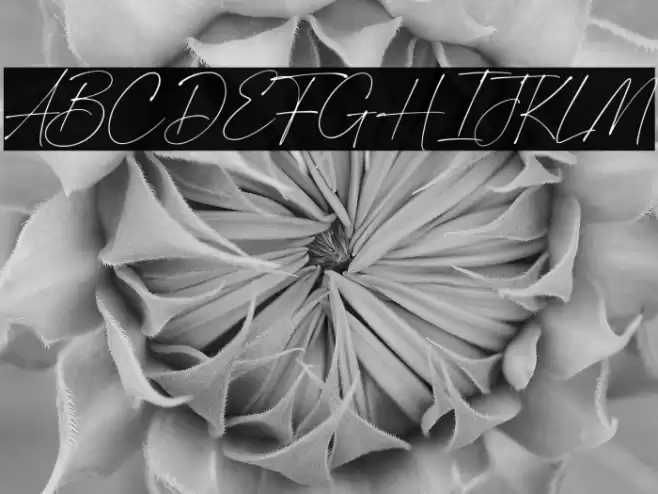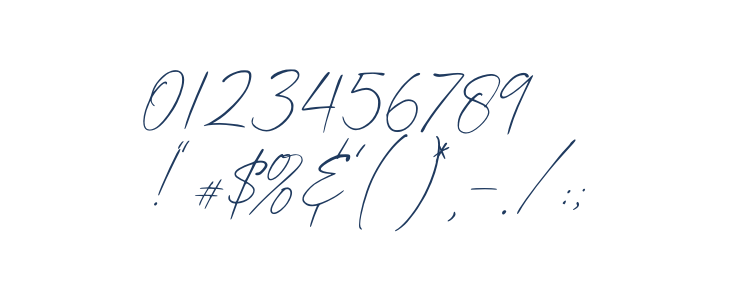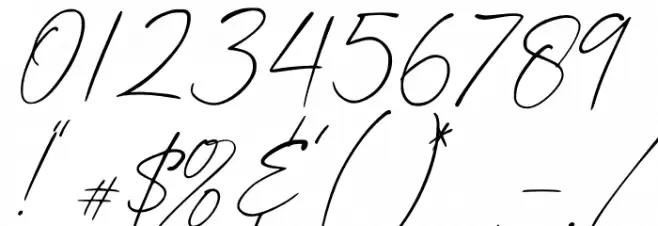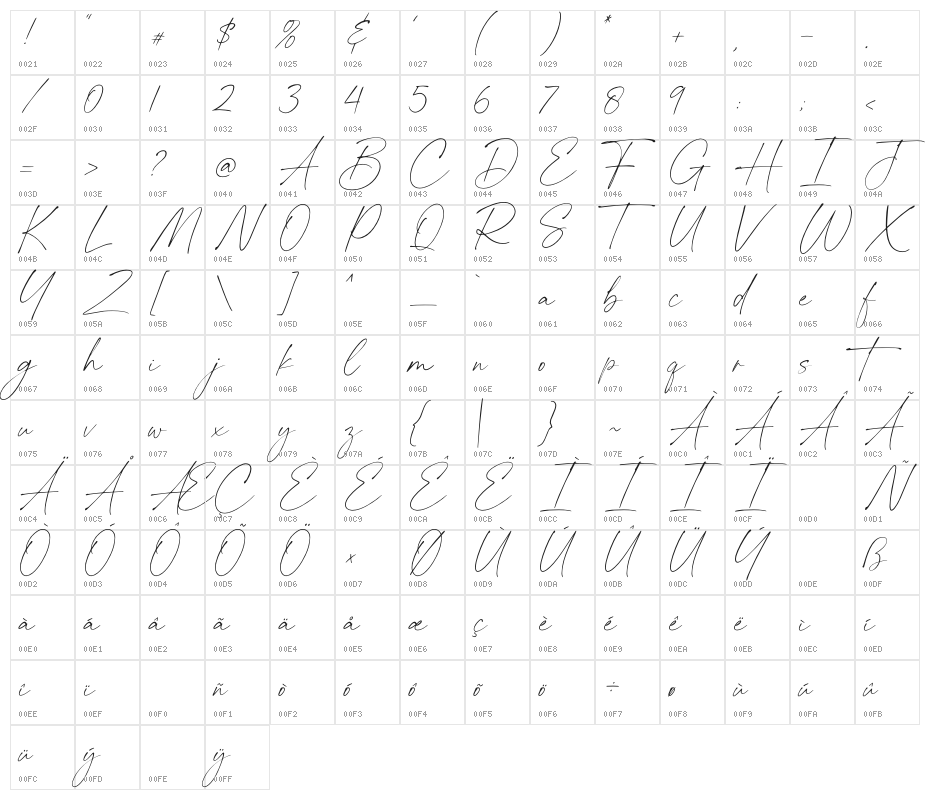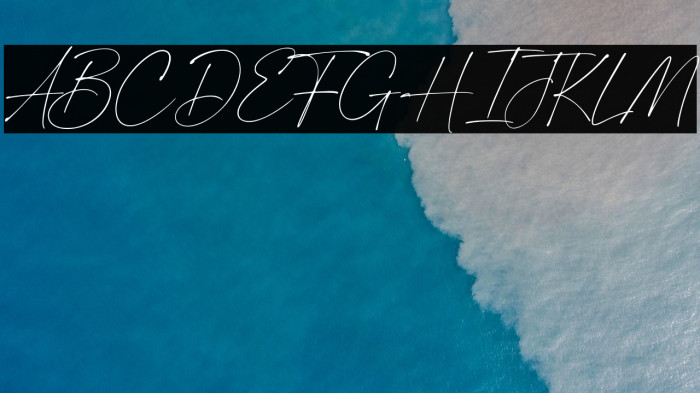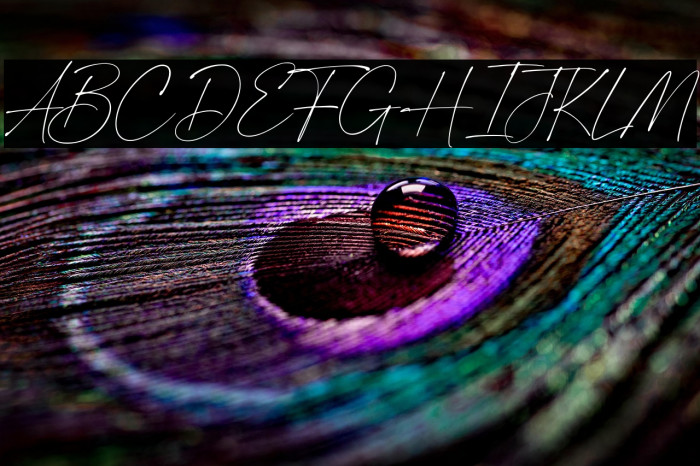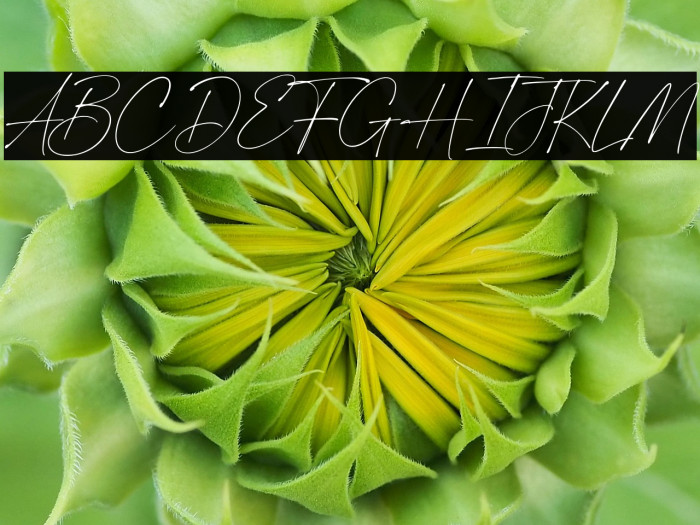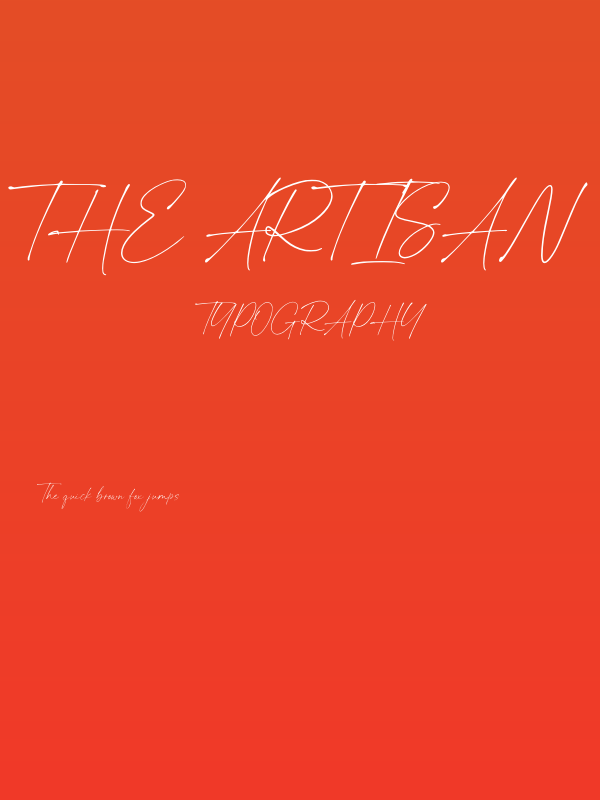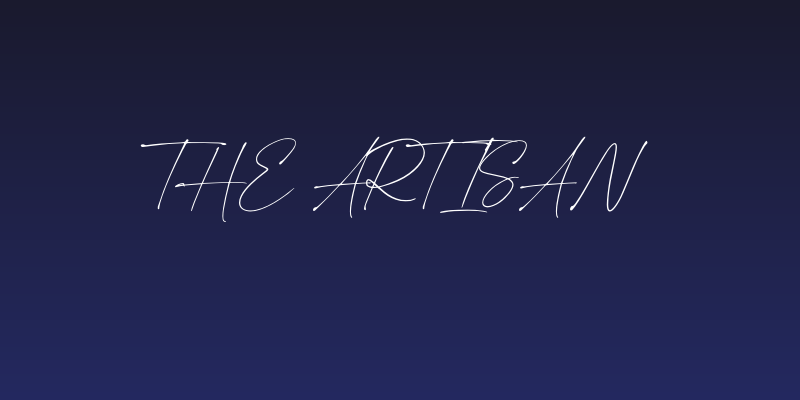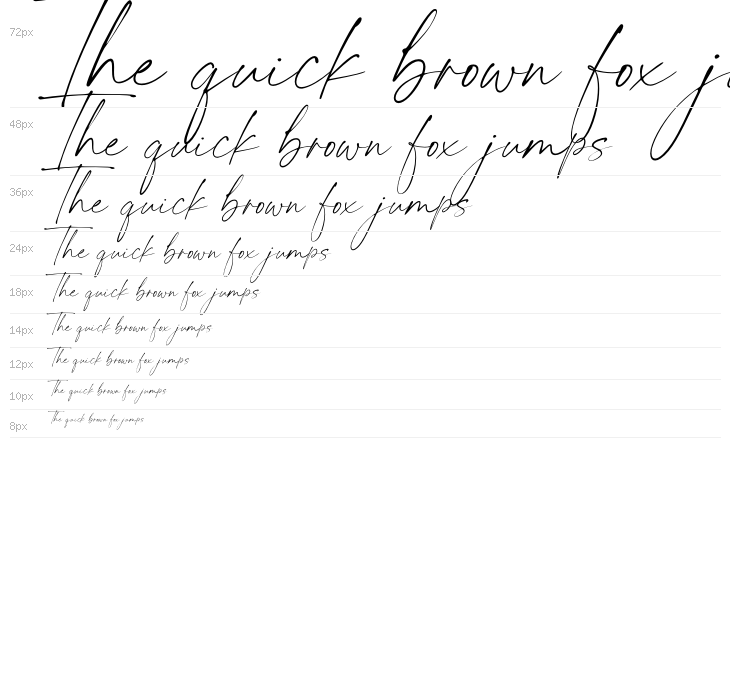
the artisan Font
the artisan Description
This font exudes a sense of elegance and fluidity, characterized by its cursive, handwritten style. The letters are connected in a smooth, flowing manner, giving it a personal and artistic touch. The uppercase letters are tall and slender, while the lowercase letters maintain a consistent flow, enhancing readability despite the script style. The numerals and special characters follow the same fluid design, ensuring a cohesive look across all characters. The strokes are thin, with a slight variance in thickness that adds to the handwritten feel without compromising clarity.
A cursive, handwritten font with elegant, flowing strokes from Uncategorized fonts.
- Font: the artisan
- Proposed Projects: Ideal for wedding invitations, personal branding, greeting cards, and artistic projects.
- Overall Style: Elegant, Artistic
- Use Case: Invitations, Personal branding, Artistic projects